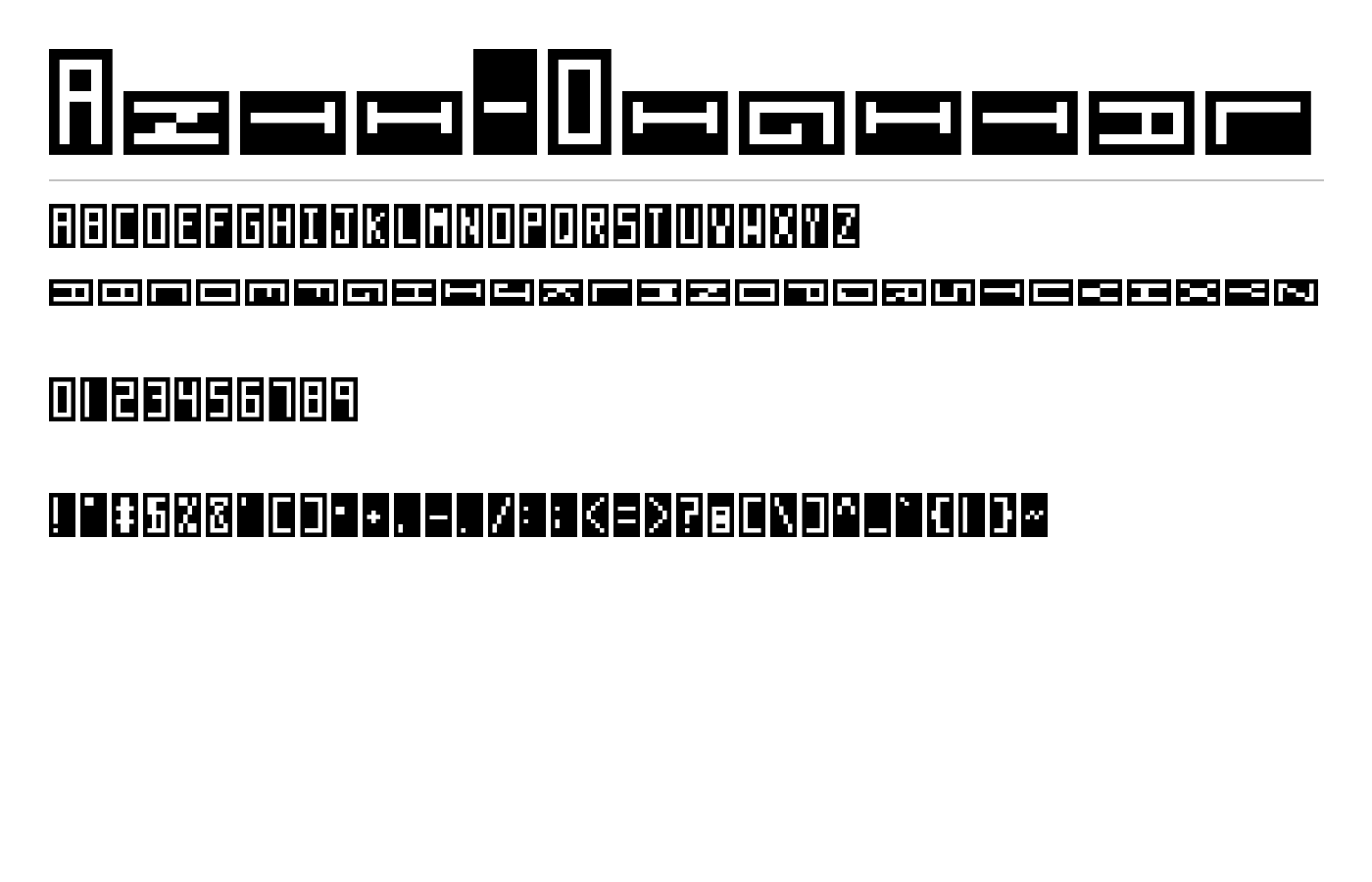
Anti-Digital is a bold, geometric sans serif font with a strong modular and blocky design that evokes a retro-futuristic, almost pixelated aesthetic. Its high contrast between thick outlines and hollow interiors, combined with its compact, uniform letterforms, gives it a distinctive digital yet handcrafted feel. Ideal for striking headlines, tech-inspired branding, or creative posters, Anti-Digital stands out with its unique, futuristic personality while remaining highly legible and impactful.
Anti-Digital Font
About Anti-Digital Font
| Font family | Anti-Digital Font |
| Designer | JLG 15 |